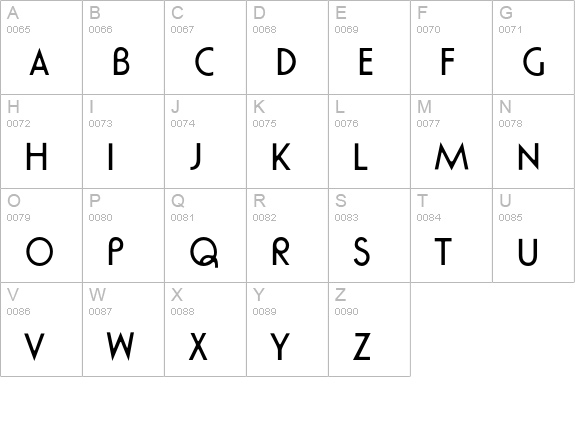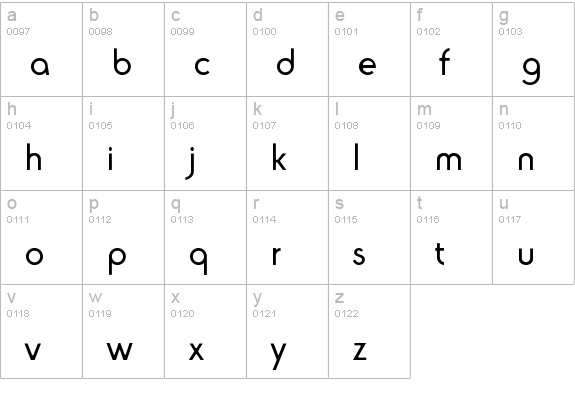
Ronda-Normal is the standard, neutral variant in the Ronda typeface family \xE2\x80\x94 well suited to general body text, paragraphs, and standard typographic work.
Introducing Ronda-Normal font - a sleek and modern typeface that exudes elegance and sophistication. With its clean lines and balanced proportions, Ronda-Normal is perfect for a wide range of design projects, from branding to editorial design. This versatile font is available in a variety of weights, making it suitable for both display and body text. Whether you're designing a logo, creating a poster, or designing a book layout, Ronda-Normal has got you covered. Best of all, Ronda-Normal is completely free to download at FontsMarket.com. So why wait? Elevate your designs with this stylish and contemporary font today!